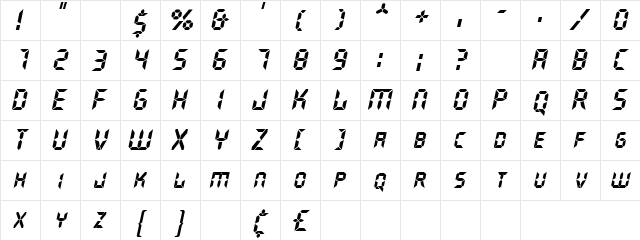
GhostMachine Oblique
Design Context for GhostMachine Typeface
GhostMachine takes a measured approach to typography — its balanced proportions and neutral character make it a reliable workhorse for both digital and print work. The slanted form adds forward momentum and visual energy.
Pro Tip: Use GhostMachine for emphasis, pull quotes, and subheadings where its slanted energy can add rhythm to the layout.